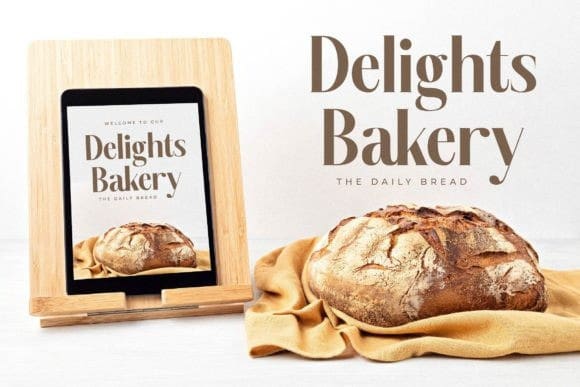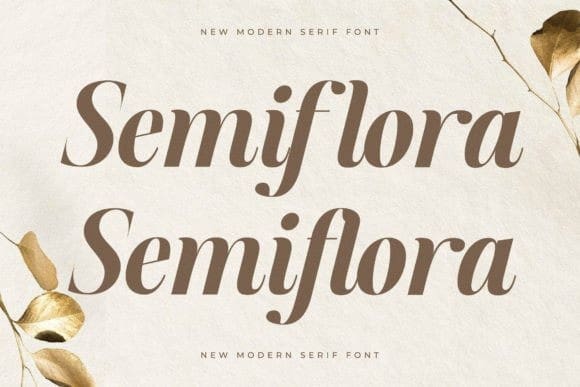
Semiflora Font
Semiflora Font, created by Storytype, a serif modern and classic typeface that has own unique style & modern look. This typeface is perfect for an elegant & luxury logo, book or movie title design, fashion brand, magazine, clothes, lettering, quotes, and so much more.